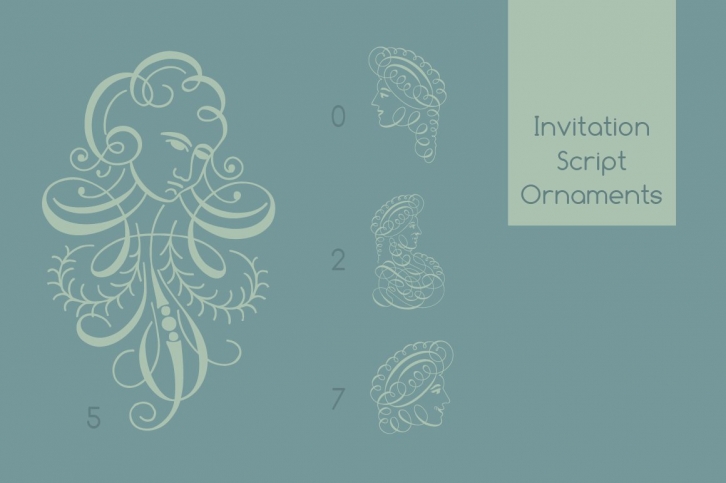
Iza W and Intellecta Design are proud to announce Invitation Script, a modern and clean revival of the classic work of the Portuguese master penman Manuel de Andrade de Figueiredo, whose work can be seen in “Nova Escola para aprender a ler, escrever, e contar (...)'' (1722).
Invitation Script is the third script superfamily published by Intellecta Design, after Penabico and Van den Velde Script.
Invitation Script has original letters designed by Iza W. Creative direction and core programming were provided by Paulo W. Chyrllene K assisted with some work on unusual and archaic styles, resulting in a special font - Invitation Script Archaic (soon available).
Invitation started out from Andrade's script style and evolved into a voluptuous script font family. The result is a typeface ideal for beautiful headings, signatures, art work typography, titles and short pieces of hand-lettered text. Invitation family includes two multi-table Opentype fonts, three supplementary fonts for ornaments and fleurons, and the Archaic font with some of the Andrade's original characters. Embedded in the regular fonts are additional sets of letters. Over 40 variations are available for certain letters via the Special Sets Opentype table. Here you has the two ornaments fonts in a single and cheap pack.